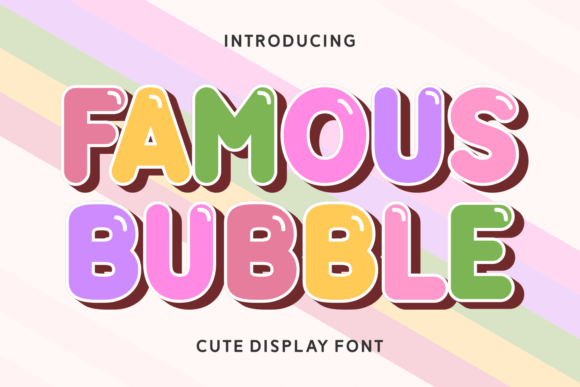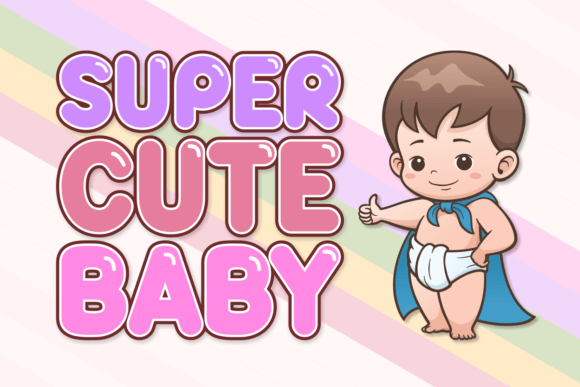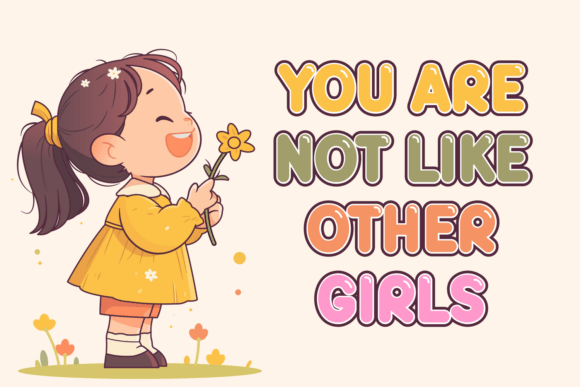
Unlocking the Joy of Famous Bubble Font
Have you ever found yourself doodling with a pen, creating silly characters and playful patterns that bring a smile to your face? For designers, this creative moment is not just a fleeting pleasure, but a chance to tap into the power of typography and create something truly special. One font that captures this essence of fun and playfulness is the Famous Bubble Font.
This sweet and charming display font features rounded corners that give a friendly and approachable impression. Its natural and unique style makes it the perfect fit for a wide range of designs, from kids’ branding to social media graphics. With its expressive and colorful letter style, the Famous Bubble Font adds a bright and happy touch to every design, making it a valuable asset for any designer looking to add a little joy to their work.
Famous Bubble Font Key Features
- Font Family: The Famous Bubble Font is a unique, hand-drawn sans-serif font, ideal for creating playful and eye-catching designs.
- Character Count: The font includes over 200 characters, including uppercase and lowercase letters, numbers, punctuation marks, and special characters.
- Unique Characteristics: The Famous Bubble Font features a distinctive, rounded design with a subtle bubble-like effect, adding a touch of whimsy and fun to any design project.
Famous Bubble Font Review
I’ve had the chance to work with the Famous Bubble Font, and here’s my honest take.
- Unique design: The Famous Bubble Font has a distinctive look that sets it apart from other fonts.
- Highly legible: Despite its playful nature, the font is surprisingly easy to read, even at smaller sizes.
- Good for casual use: The font is perfect for social media posts, blog titles, or any other application where you want to add a touch of whimsy.
- Limited versatility: The Famous Bubble Font may not be the best choice for formal or professional applications.
- Lack of sophistication: The font’s playful design may come across as childish or immature in certain contexts.
- Difficult to pair: The font’s unique style can make it challenging to pair with other fonts, which may limit its creative possibilities.
While the Famous Bubble Font has its limitations, it’s a great choice for designers who want to add a touch of personality to their work. Its unique design and high legibility make it a great option for casual use, but it may not be the best fit for more formal or professional projects.
The Famous Bubble Font is ideal for creating playful, eye-catching designs. Use it for:
– Social media posts
– Party invitations
– Children’s books
– Food and beverage branding
– Any design that requires a fun, bubbly feel.